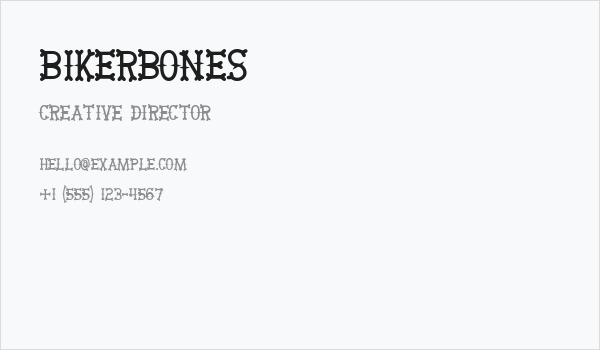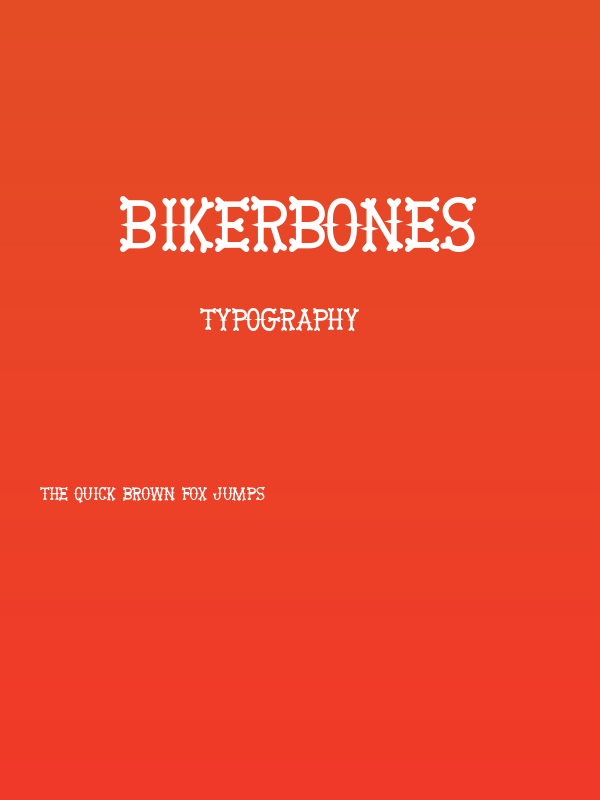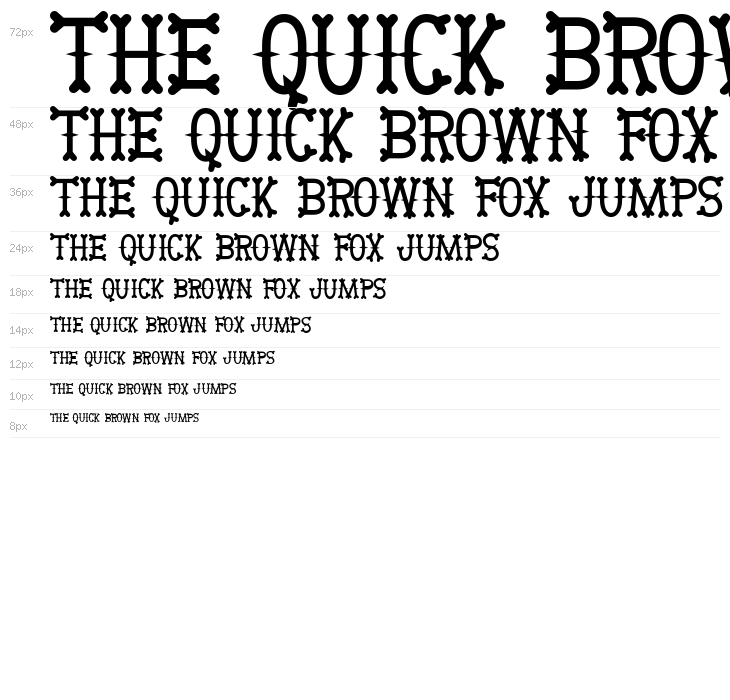
BikerBones Font
BikerBones Description
This font features a unique and playful design, with each character resembling a series of bones or skeletal structures. The letters are bold and have a decorative style, making them stand out with their distinctive appearance. The font includes both uppercase and lowercase letters, numbers, and a variety of special characters. The strokes are consistent in thickness, giving the font a uniform look, while the ends of each stroke are rounded, enhancing the bone-like effect. This font is ideal for projects that require a fun, spooky, or thematic touch, such as Halloween-themed designs or biker-related graphics.
| Use Case | Headlines, Logos, Thematic designs |
| Proposed Projects | Ideal for Halloween graphics, biker-themed designs, posters, and novelty items. |